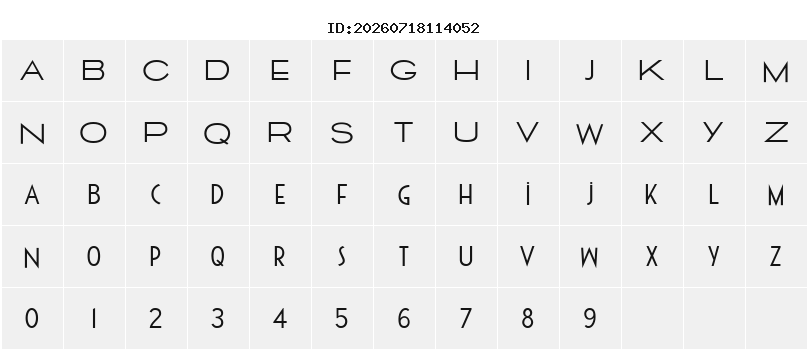
Cassandra Normal Preview
• Font Name: Cassandra Normal
About Cassandra Normal.ttf
Cassandra Normal.ttf is a modern, elegant sans-serif font designed for ultimate readability and visual harmony. Perfect for branding, headlines, web design, and print materials.